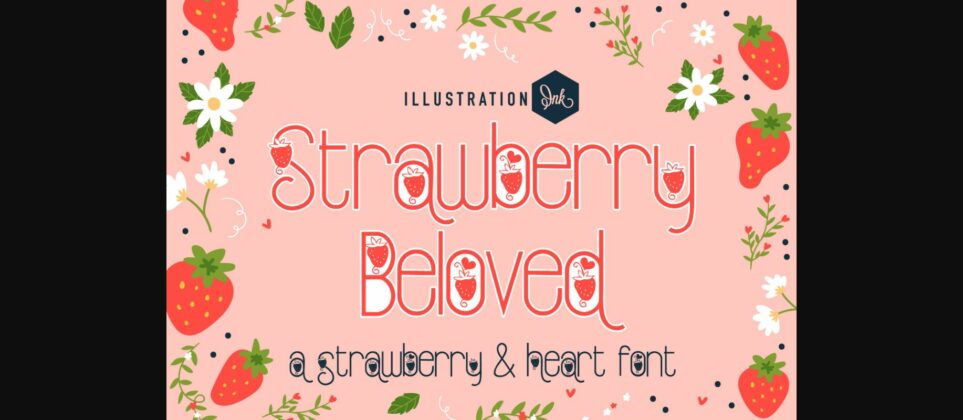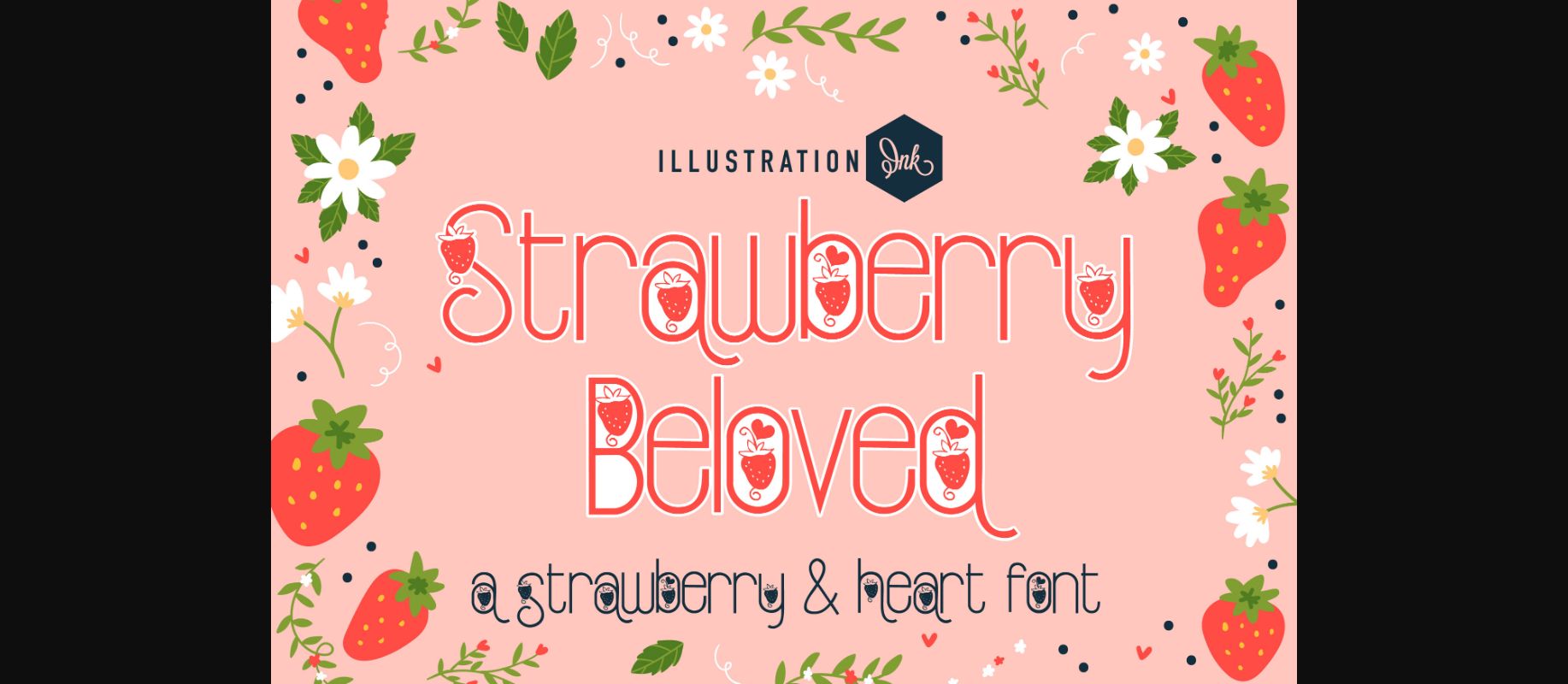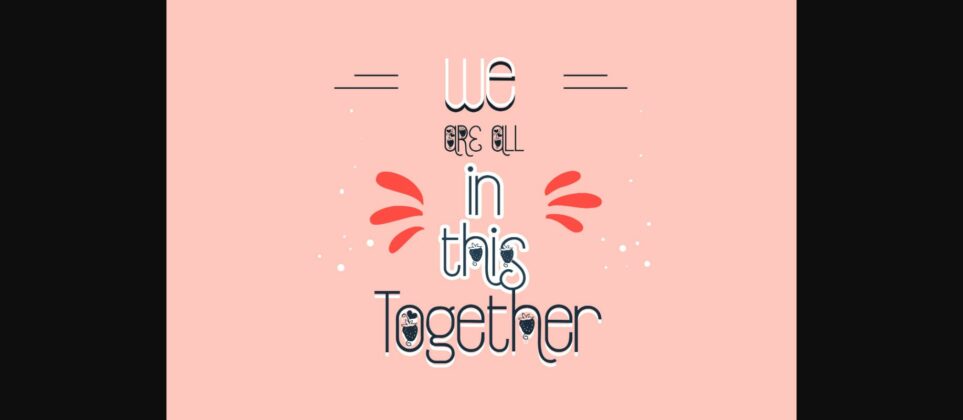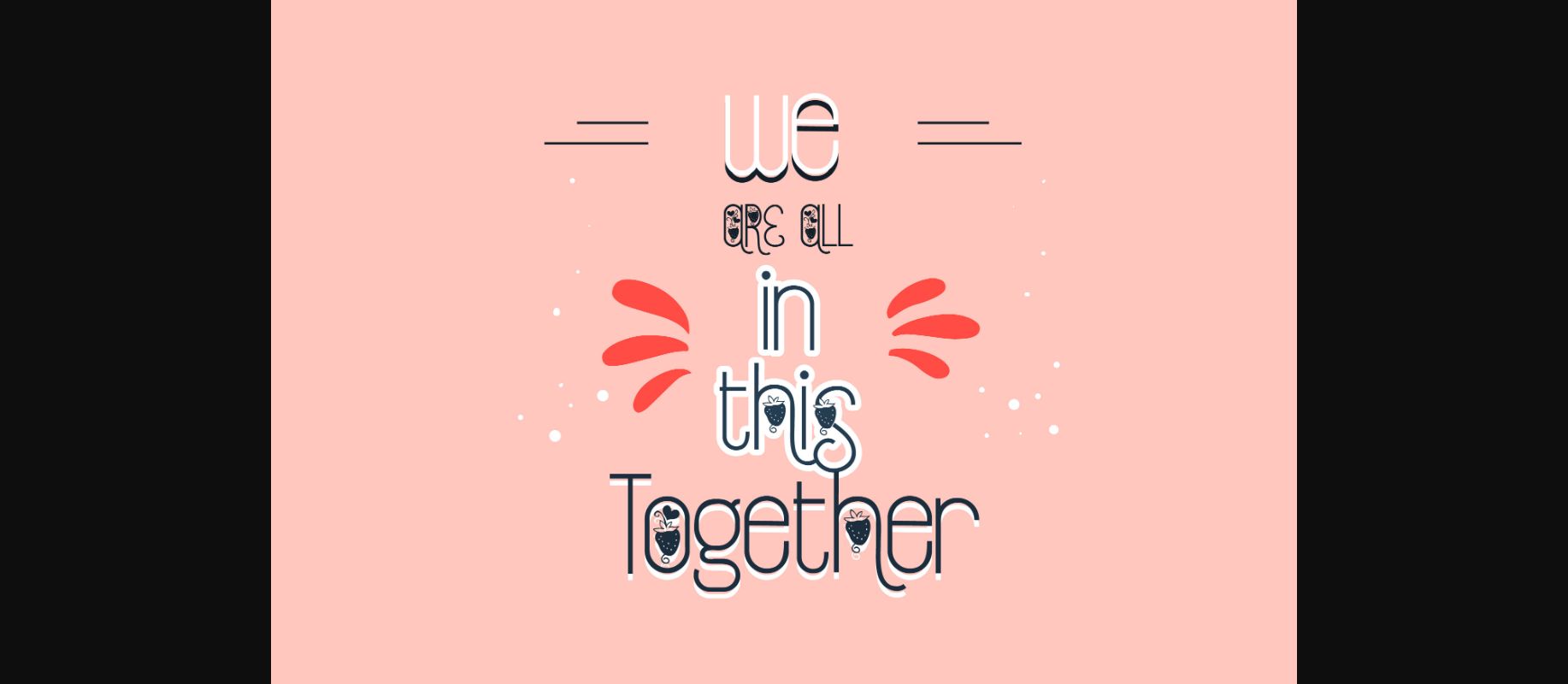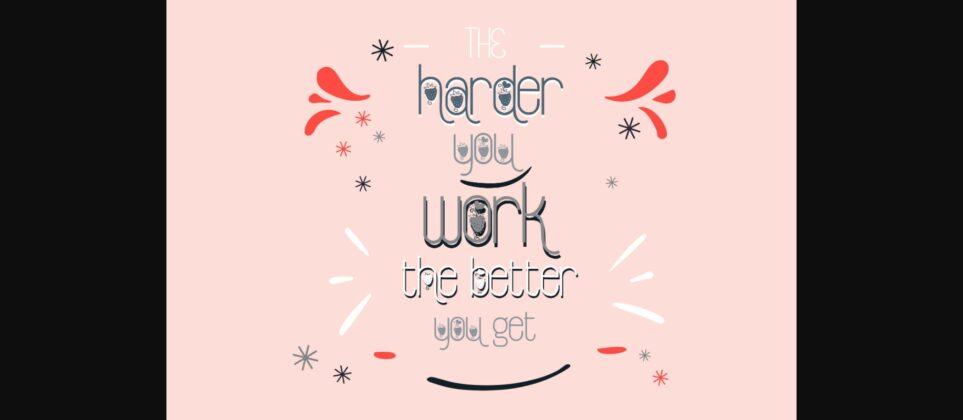
About Strawberry Beloved Font
This unique, hand-crafted sans serif is a bit modern and formal and sports berries and hearts. No matter the topic, this font will be an incredible asset to your fonts’ library, as it has the potential to elevate any creation.